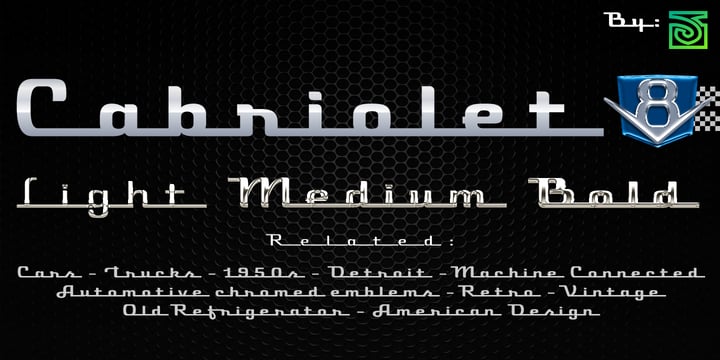
Cabriolet V8™
por JVB Fonts
La familia tipográfica Cabriolet V8 fue diseñada por John Vargas Beltrán y publicada por JVB Fonts. Cabriolet V8 contiene 3 estilos y opciones de paquete familiar.
Cabriolet V8 is a vertical version of the Cabriolet family, a geometric script fontface re-interpretation inspired by old chromed emblems of 1950s.
Diseñadores: John Vargas Beltrán
Editorial: JVB Fonts
Fundición: JVB Fonts